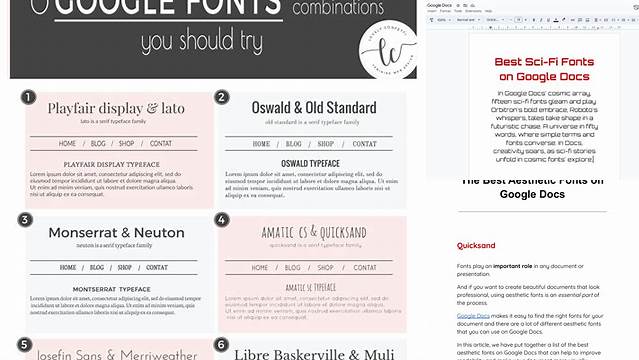
Best Fonts For Google Docs Presentations
Hey guys! Ever feel like your Google Docs presentations are falling a little flat? Like, the words just aren't popping the way you want them to? Well, a huge part of that is the font you choose! It's like picking the right outfit – it can totally transform how people see your presentation. That's why we're diving deep into the best fonts for presentations in Google Docs. We'll cover everything from classic choices to some hidden gems, ensuring your slides grab attention and keep your audience hooked. Choosing the perfect font isn't just about aesthetics; it's about clarity, readability, and making sure your message hits home. So, let's ditch the boring defaults and explore the world of fonts that will make your presentations shine! Ready to level up your presentation game? Let's jump in!
H2: Understanding Font Families and Their Impact on Presentations
Alright, first things first: understanding font families. Think of a font family as a group of related fonts that share a common design. Within a family, you'll find variations like bold, italic, and different weights (light, regular, bold). The two main families you'll encounter are serif fonts and sans-serif fonts. Serifs are those little decorative strokes at the end of letters (think Times New Roman), while sans-serif fonts lack them (like Arial). Which one is better? Well, it depends on your presentation's goal.
Serif fonts, because of their traditional look, can sometimes be associated with trust and authority. They're great for presentations where you want to project a sense of experience or credibility. However, they can be harder to read at a distance, so it's generally a smart move to use them for larger text like headings or short, impactful sentences. Avoid using serif fonts for large blocks of text on slides. This will cause a strain on your audience's eyes.
On the flip side, sans-serif fonts are generally considered more readable on screens. They're clean, modern, and easy on the eyes, especially at different sizes. They are also considered great for body text. They are perfect for presentations that need to be easily readable from afar, like those projected onto a large screen. Think about this: you are presenting to a large room, and your audience is sitting far away. You will want them to easily read all the texts you are presenting. It's also important to consider your audience. Are you speaking to a group of tech-savvy individuals? A modern sans-serif font will likely resonate with them. Are you pitching to a more traditional audience? A classic serif font might be a better choice. The key is to choose a font that aligns with your message and target audience.
Finally, remember font weight. The weight of a font refers to the thickness of the letter. Bold fonts are useful for drawing attention to key points, while lighter weights are better for body text. Always consider the context, so it's not distracting and provides a consistent look to your presentation. In this section, we've walked through the importance of understanding font families and the impact they have on your presentations. Remember, the right font choice can significantly improve the effectiveness of your presentations.
H3: Serif Fonts: Exploring Classic Choices for Professional Presentations
Let's get into some specific fonts, shall we? If you are looking for a classic and professional vibe, serif fonts are your jam! A good starting point is Georgia. Designed for readability on screens, Georgia is easy on the eyes and has a timeless feel. It's a great option for both headings and body text, especially if your presentation has a lot of text. Next up is Times New Roman. It's the font everyone knows, and for a reason! It projects an image of authority and sophistication. While it might seem a bit overused, it can still work well for headings and short bursts of text. Just make sure it aligns with your overall presentation theme.
Another option is Garamond. It is known for its elegance and readability, especially in larger sizes. Its graceful curves and refined look make it a great choice for presentations where you want to convey a sense of sophistication. It's a good choice if you want to present a high-end feel. Keep in mind, with serif fonts, legibility is key. The best fonts balance aesthetics with readability. You want to be sure your audience can read the text from a distance. Before selecting, always test how the font appears on a large screen, to avoid any issues.
When selecting serif fonts, consider their weight and style. Bold versions can draw attention to critical points, while regular weights are best for body text. Also, consider your presentation's topic. A classic serif might be perfect for a legal or financial presentation, while a more contemporary audience might prefer a different style. Choosing the right font from the beginning is the first step to creating great presentations. Understanding the characteristics of different serif fonts and how they can influence your audience is an essential skill for any presenter.
H3: Sans-Serif Fonts: Modern and Readable Options for Presentations
Alright, let's shift gears and explore the world of sans-serif fonts! These are the workhorses of modern presentations, known for their clean lines and screen-friendly design. A true classic is Arial. It's simple, clean, and highly readable, making it ideal for body text, especially if your audience might be viewing your presentation from a distance. It's also a good choice if you need a font that's widely available on different devices. Next up, we have Helvetica. It's a clean, neutral font that is an extremely popular choice for presentations. It's known for its versatility and its ability to convey a sense of professionalism and clarity. Perfect for a wide range of topics, Helvetica is a strong contender for any presentation.
Then there is Open Sans, which has become a go-to for many. Its open and friendly design makes it great for body text and headings. It is easy to read, and it will provide a more friendly image. It's designed to be highly readable at small sizes.